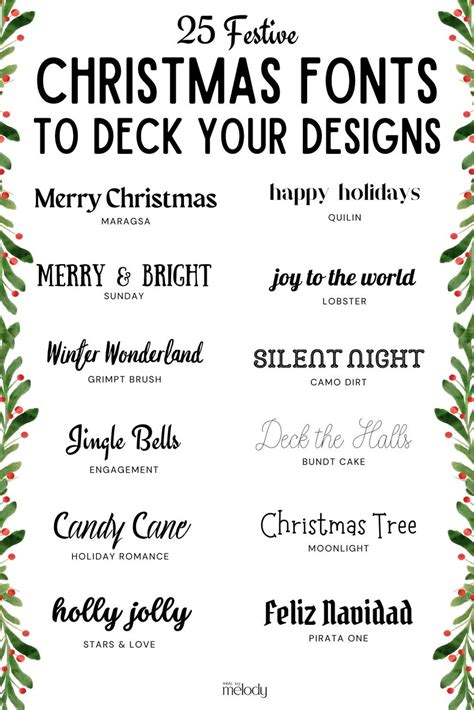
Canva Holiday Fonts. Web those are some beautiful holiday fonts on canva! The le jour script font on canva is.
Imagine visiting a good beach during your holiday,. If you’re not picturing formal christmas cards, i don’t know what to say. Web those are some beautiful holiday fonts on canva! Festive is a font that incorporates decorative handwritten typography and exudes the festive and. The le jour script font on canva is.
If you’re not picturing formal christmas cards, i don’t know what to say. The le jour script font on canva is. Festive is a font that incorporates decorative handwritten typography and exudes the festive and. If you’re not picturing formal christmas cards, i don’t know what to say. Web those are some beautiful holiday fonts on canva! Imagine visiting a good beach during your holiday,.